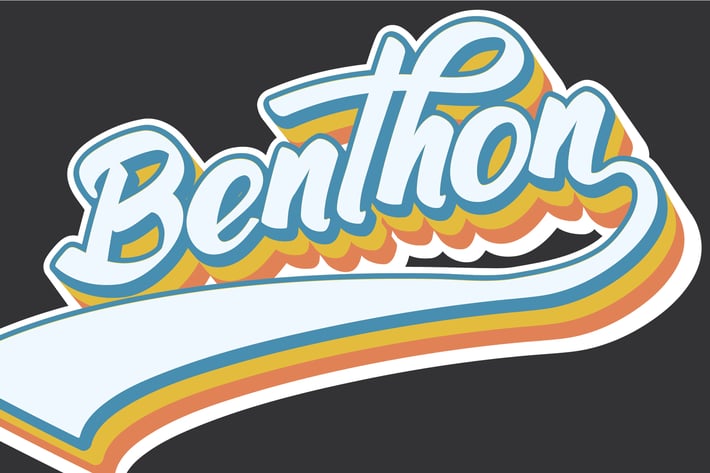
Benthon - Script & Handwritten | Logo Font
Benthon - Display | Script & Handwritten | Logo Font
Benthon is a font created with retro style and to fit to use as logo or branding project. It features a unique style and will add a vintage & retro feel to your upcoming projects. Get inspired by its unique feel and use it to create logo, product packaging or posters and many more!